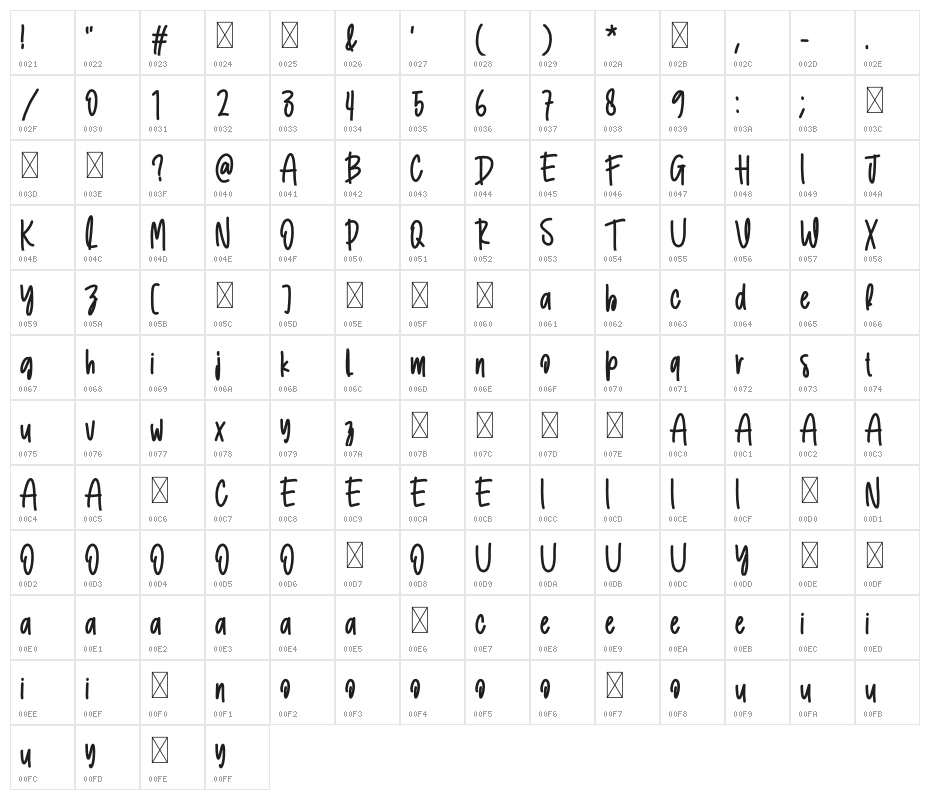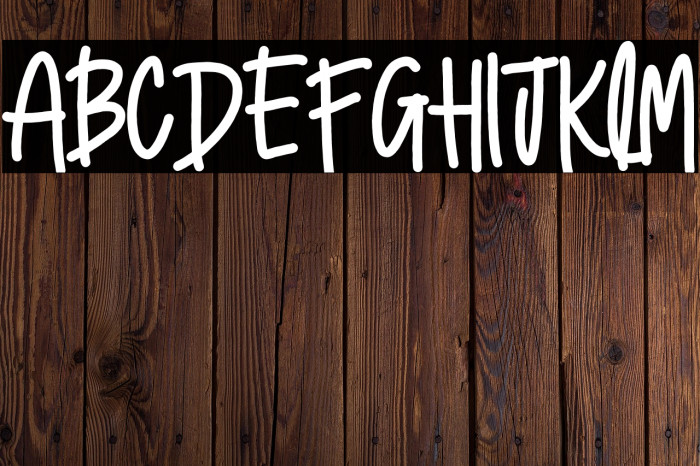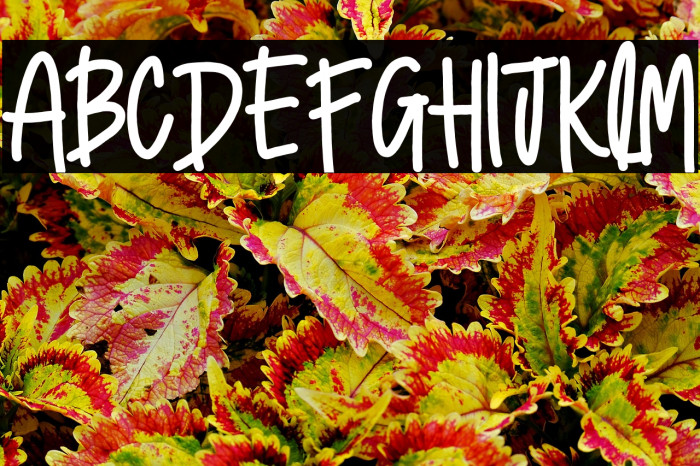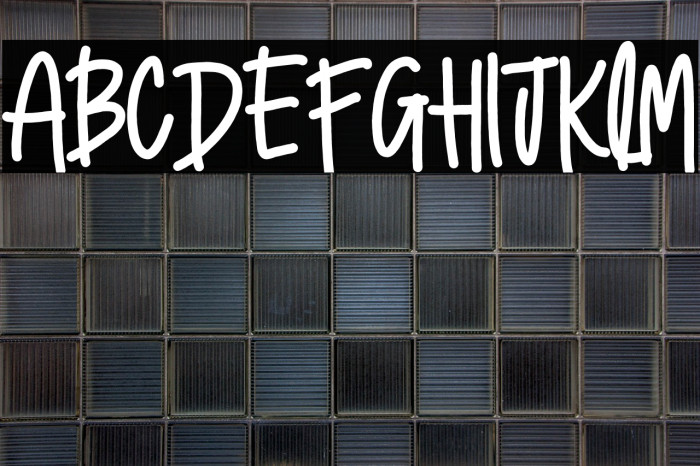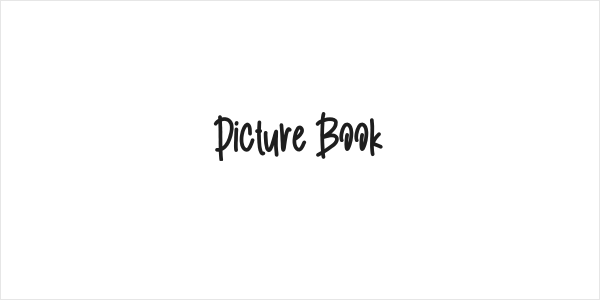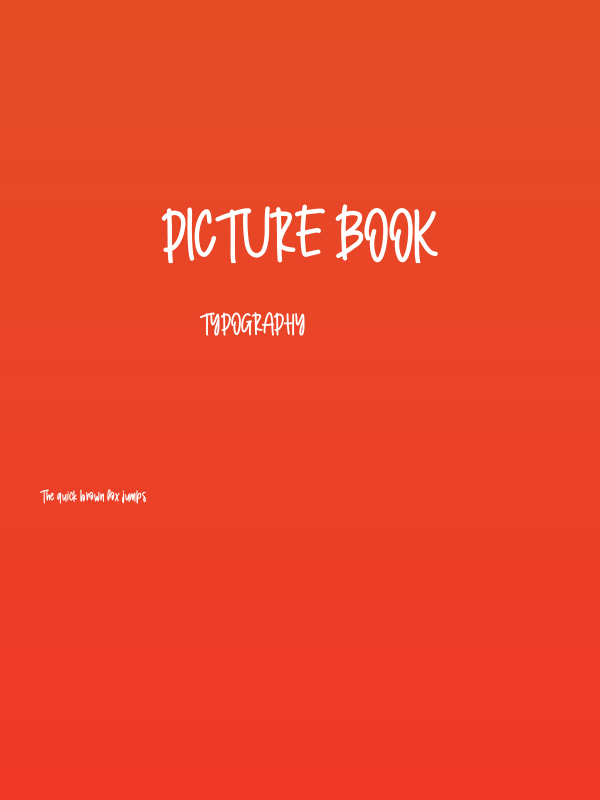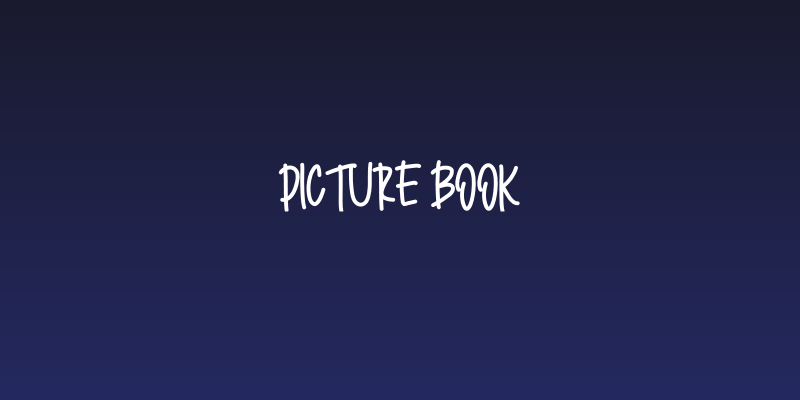
Picture Book Font
Picture Book Description
A playful, handwritten font with tall, narrow characters and irregular strokes, giving it a casual and whimsical appearance. The letters have a consistent stroke width and a slightly bouncy baseline, enhancing its informal and friendly vibe.
| Overall Style | Playful, Casual, Whimsical |
| Use Case | Headlines, Display text, ChildrenΓ’β¬β’s materials, Informal branding |
| Proposed Projects | ChildrenΓ’β¬β’s books, greeting cards, posters, playful branding, invitations. |